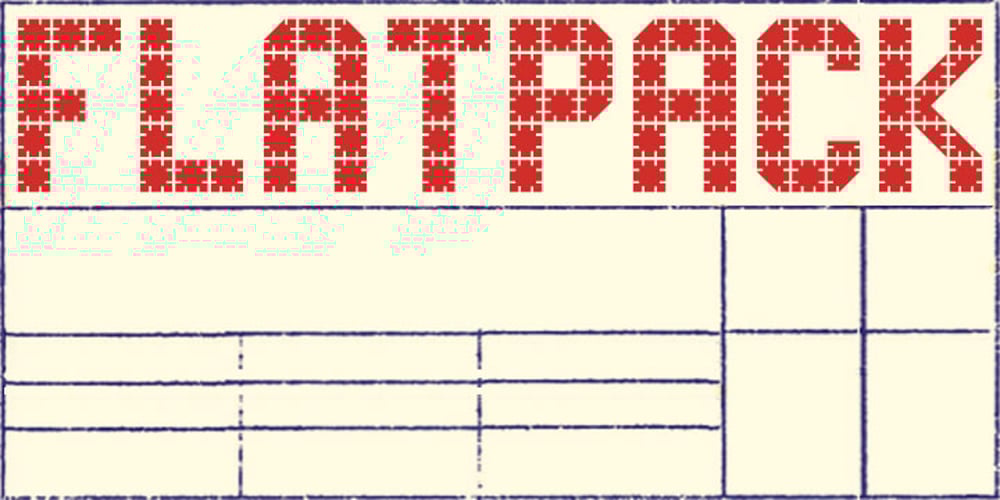
FlatPack Font Family was designed by published by K-Type. FlatPack contains 2 styles and family package options. Modular block lettering inspired by a pack of square, interlockable cardboard pieces mailed out by Gavin Peacock for mailartists to create something and photograph for his “Flatpack” mail art project. Any excuse for a font.